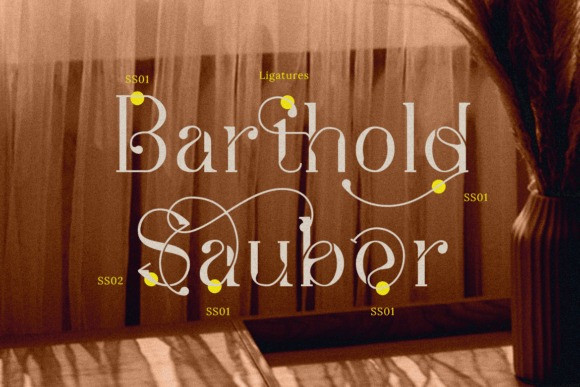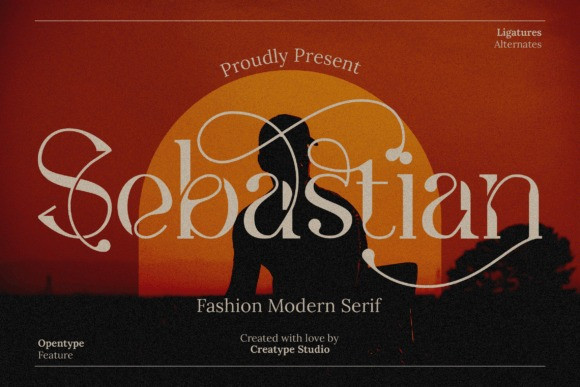
Sebastian Font
Sebastian Serif Font, A classy, alluring, and elegant typeface, that’s what Sebastian is. Designed carefully to fulfill your design needs, this typeface is the right choice!
Sebastian is perfect for branding projects, logos, wedding designs, social media posts, advertisements, product packaging, product designs, labels, photography, watermarks, invitations, stationery, and any projects that need impressive typography. This font is PUA encoded, which means you can access all of the glyphs and swashes with ease!